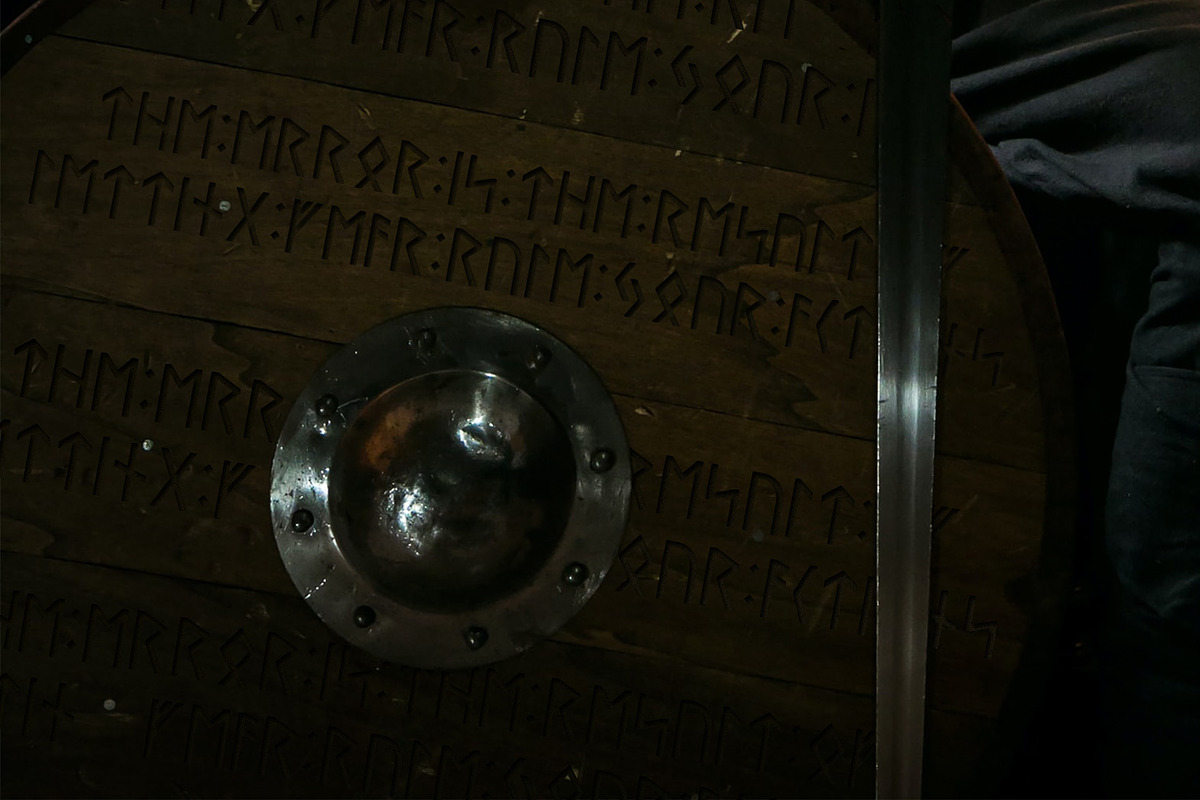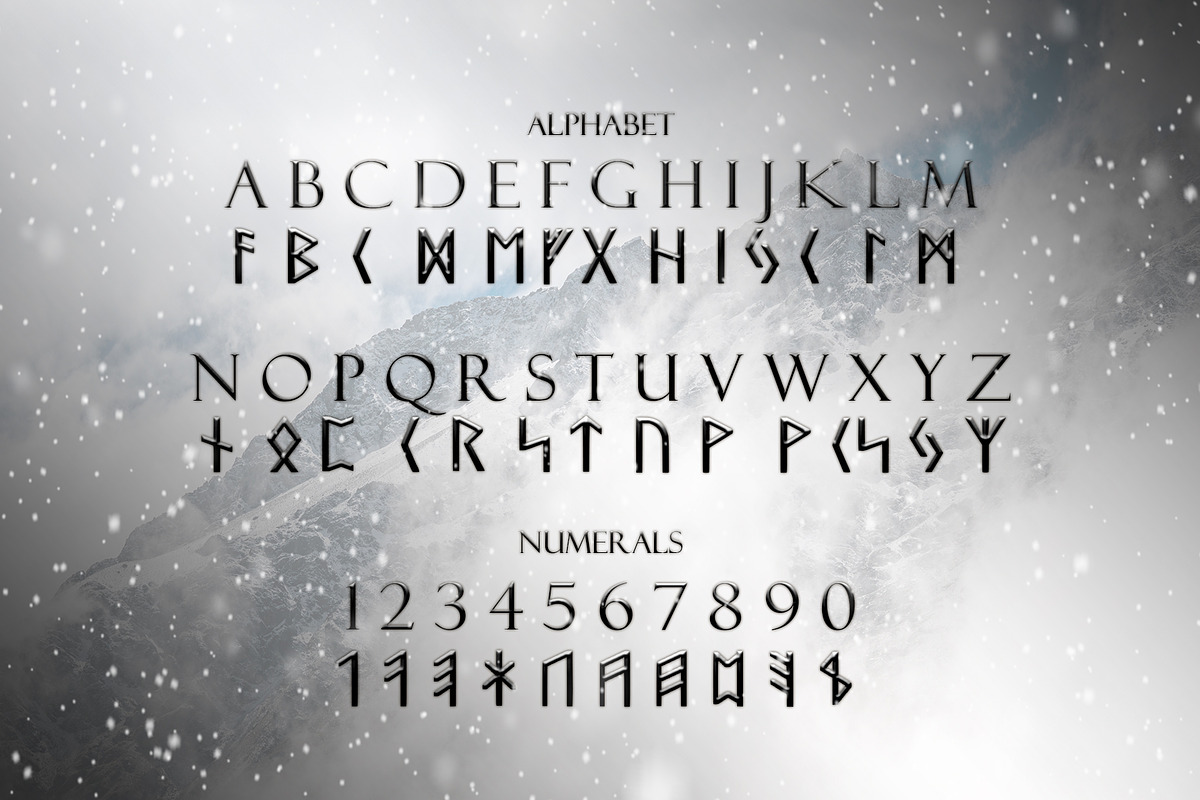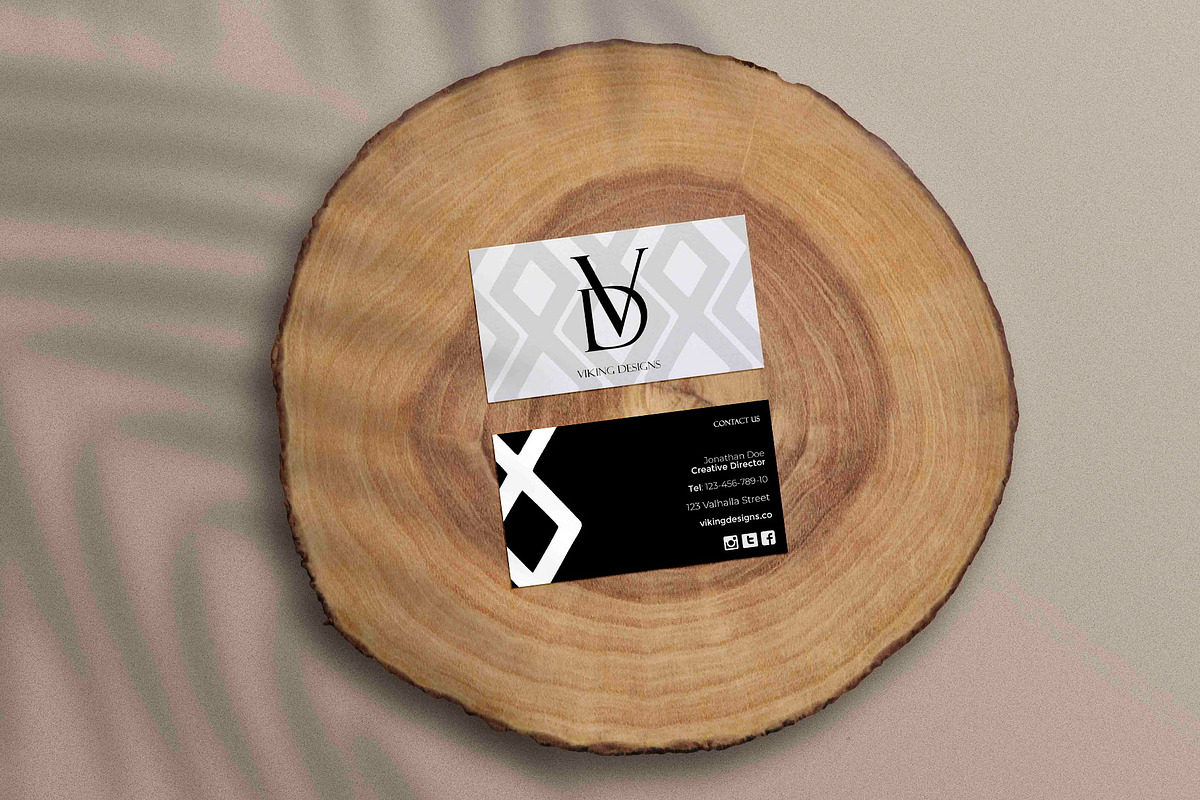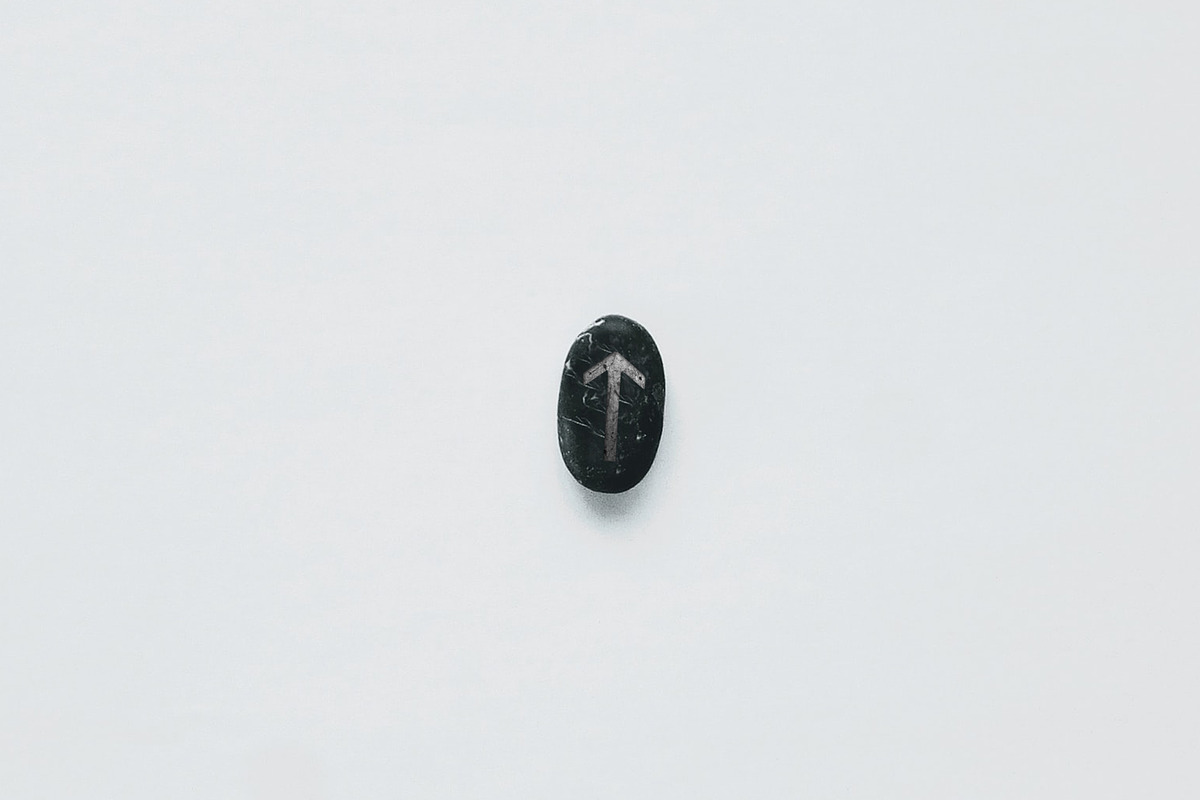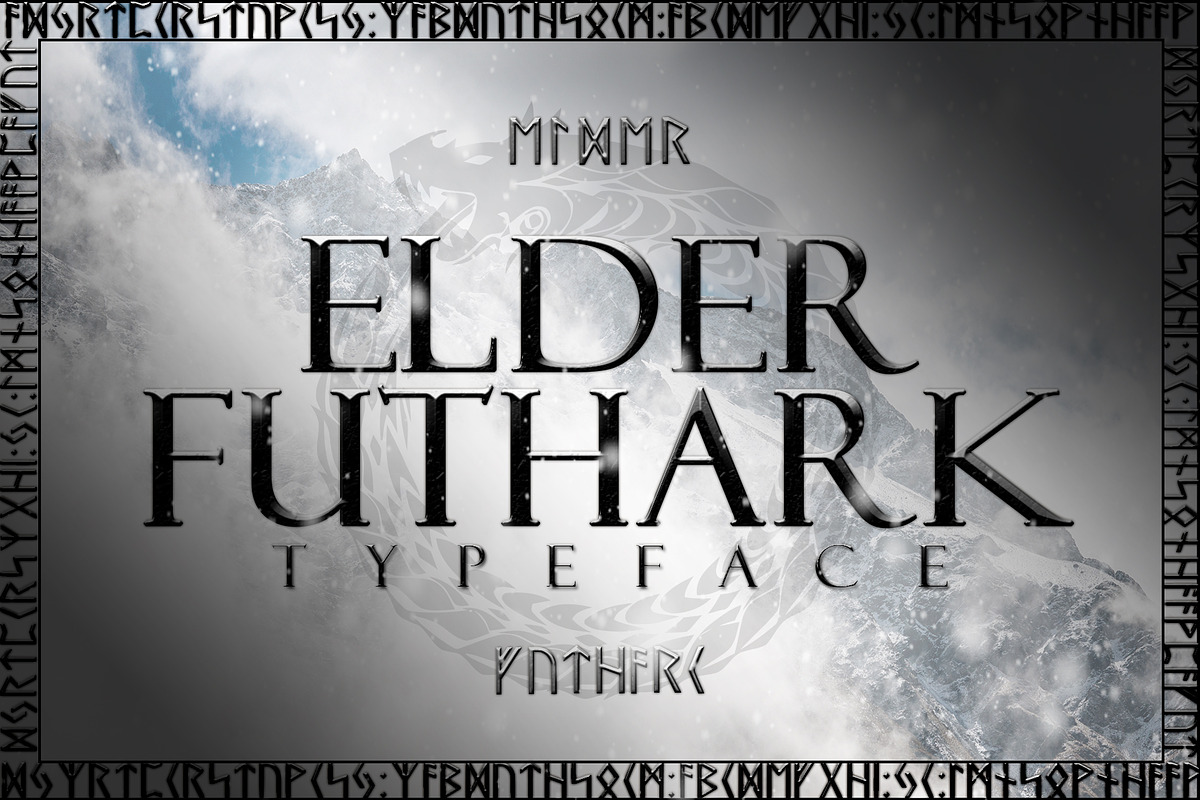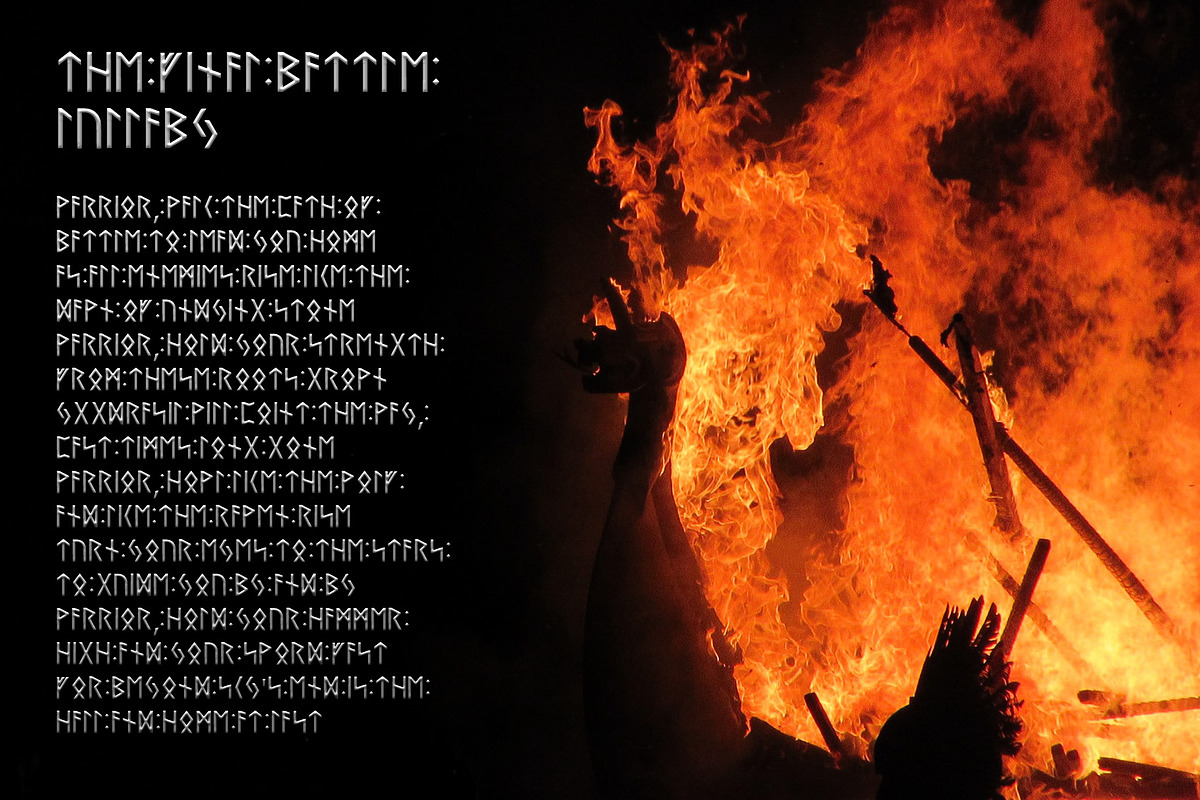
Norse Elder Futhark Typeface
The Elder Futhark typeface is a unique font based on the oldest form of the runic alphabets. It was a writing system used by Germanic tribes. Runic inscriptions are found on artefacts, including jewellery, amulets, tools, weapons, and, of course, runestones, from the 2nd to the 8th centuries. This typeface is perfect for logos, monograms, titles, and posters. The typeface acts as a translator and can add a lot of character to a project.